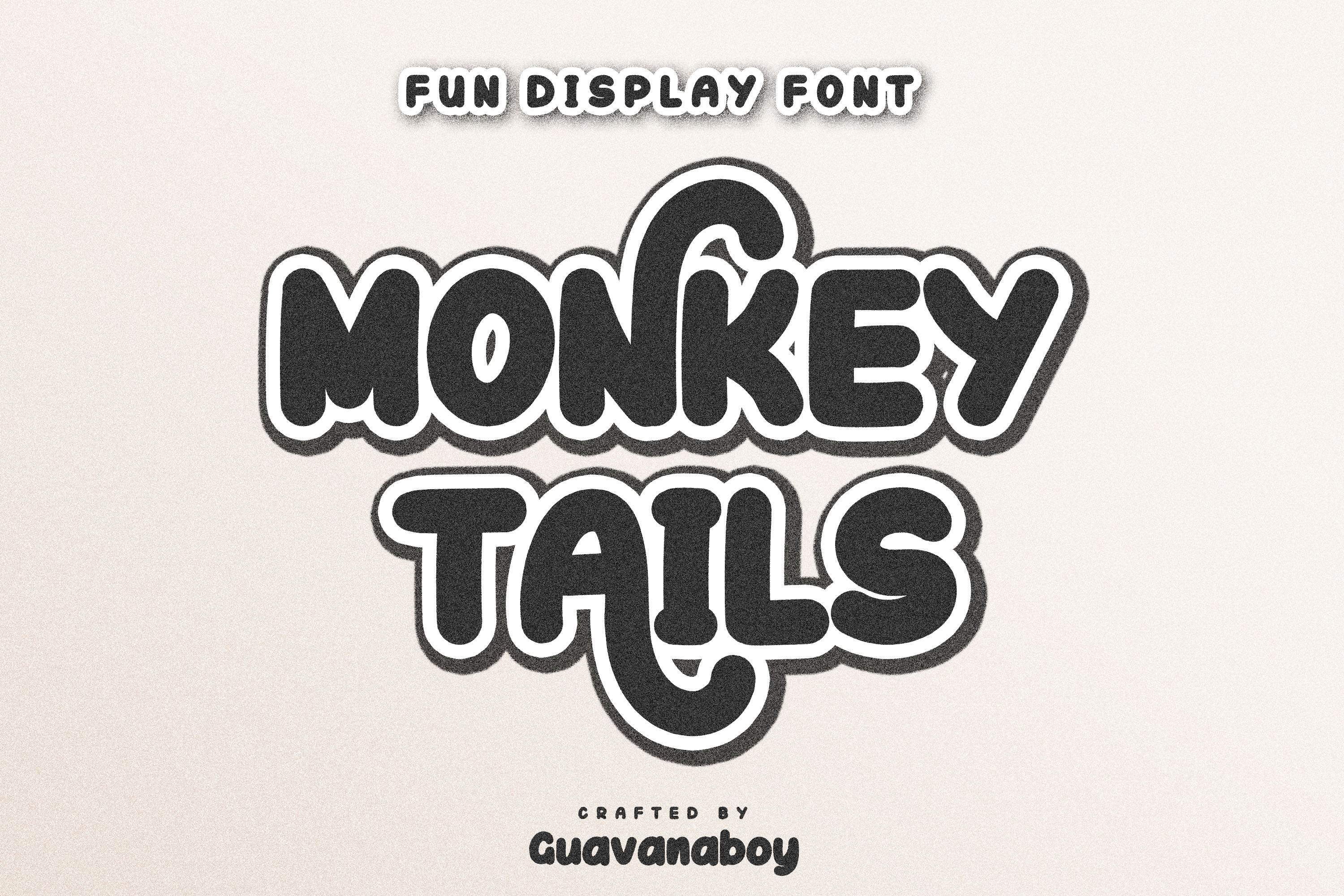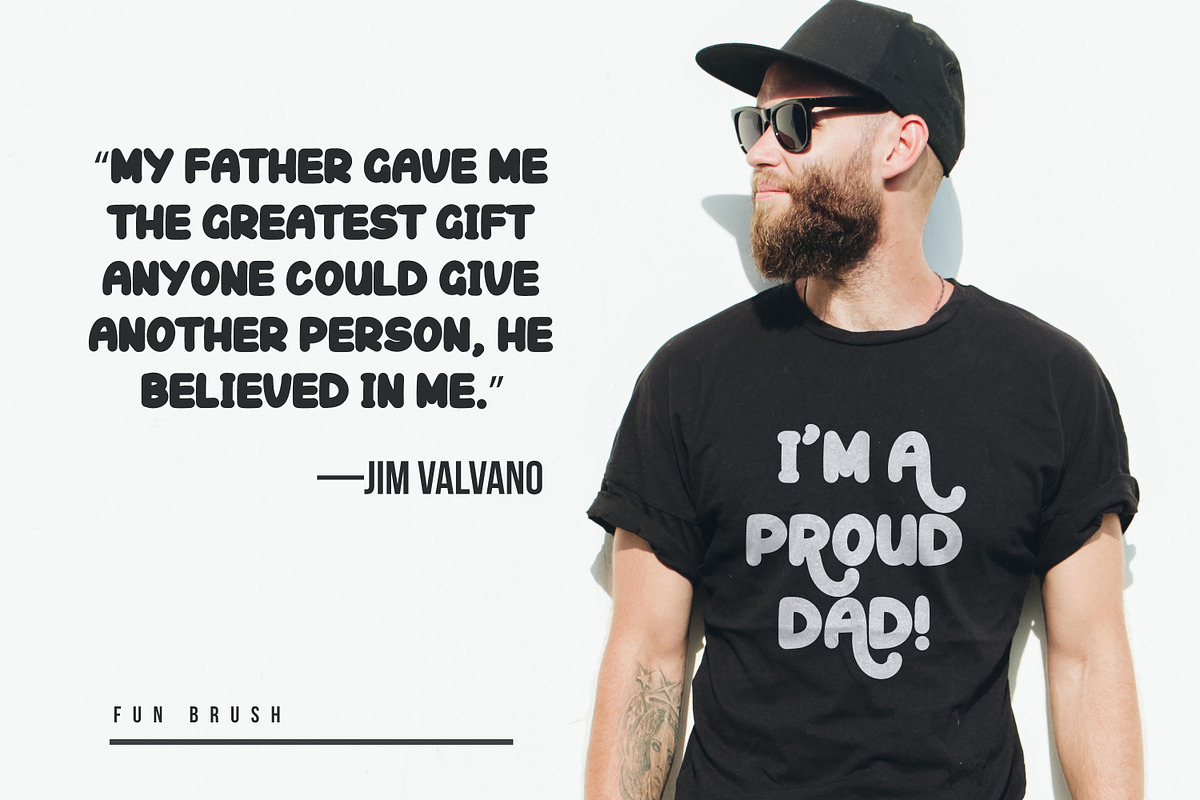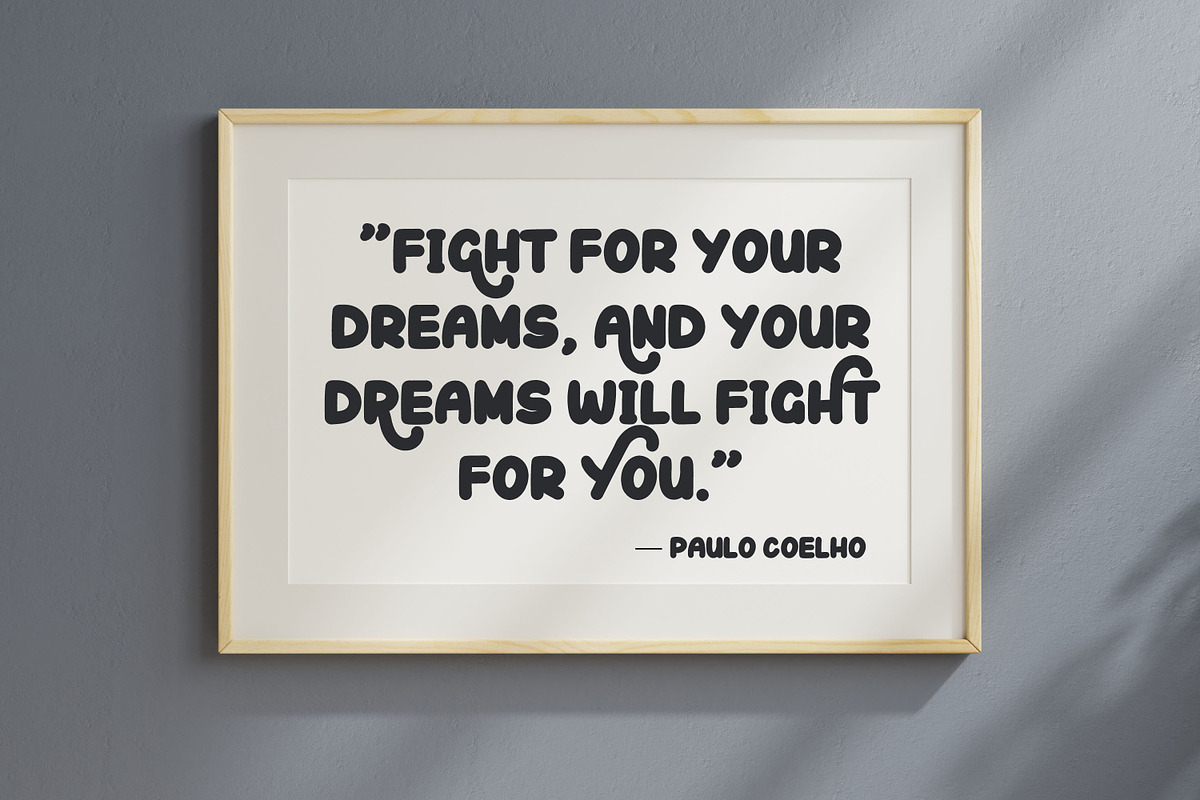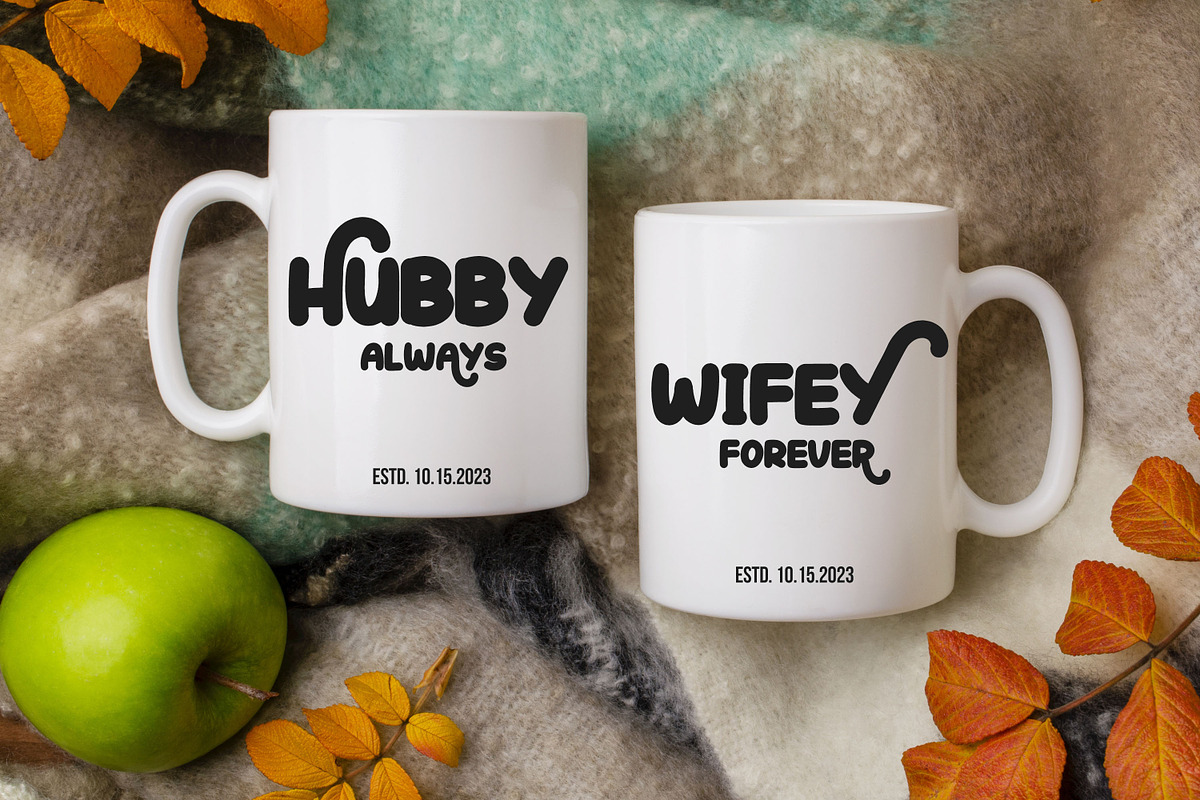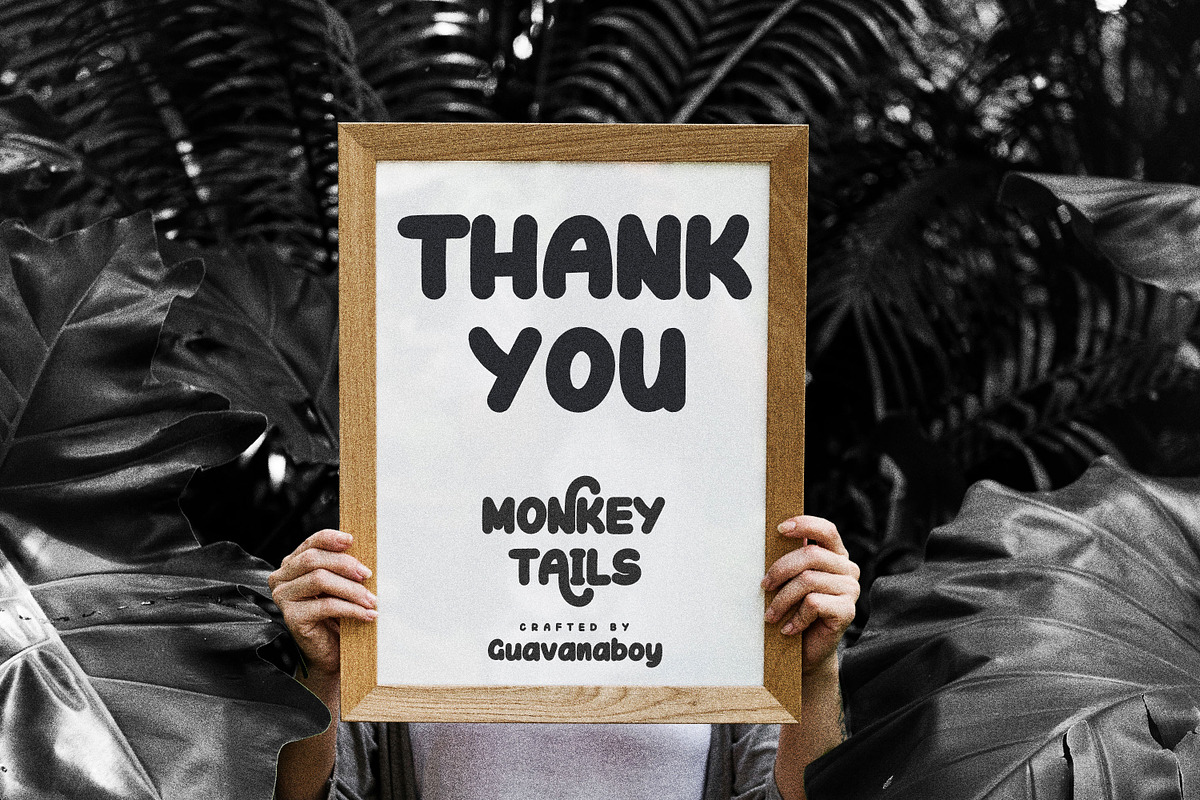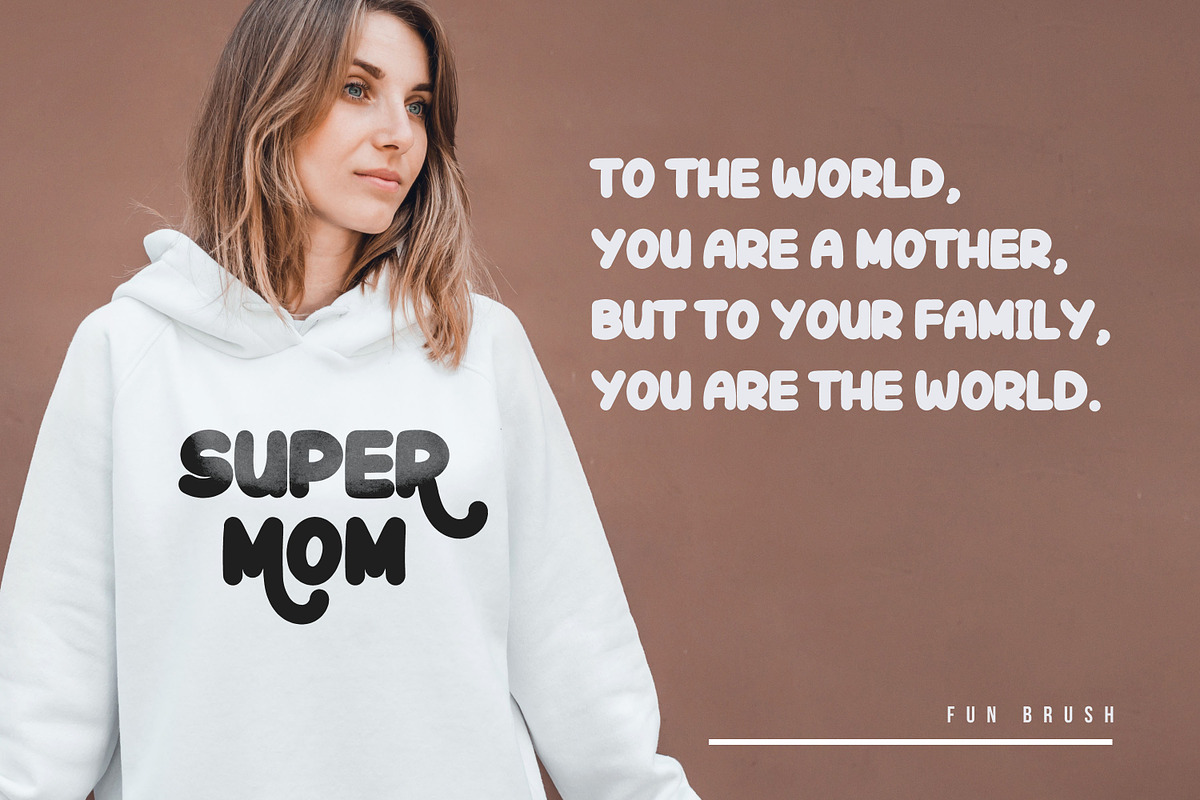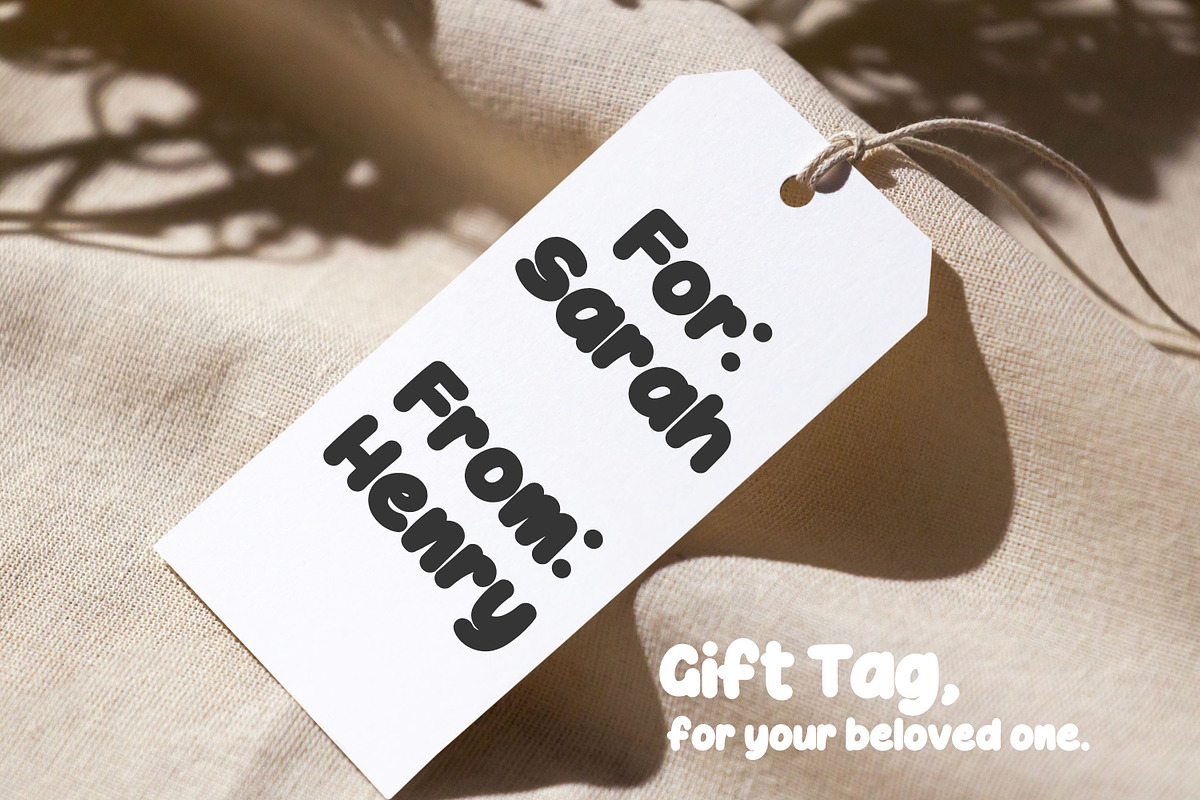
Monkey Tails Retro Brush Font
Monkey Tails Font - A Fun Retro Brush font - by Guavanaboy.
Perfect for : Social media, Advertisement, Instagram, Logos, branding, goodnotes, Canva, signs, crafting, mugs, shirts, labels, stickers, business cards, greeting cards, posters, social media, planner prints, and websites.